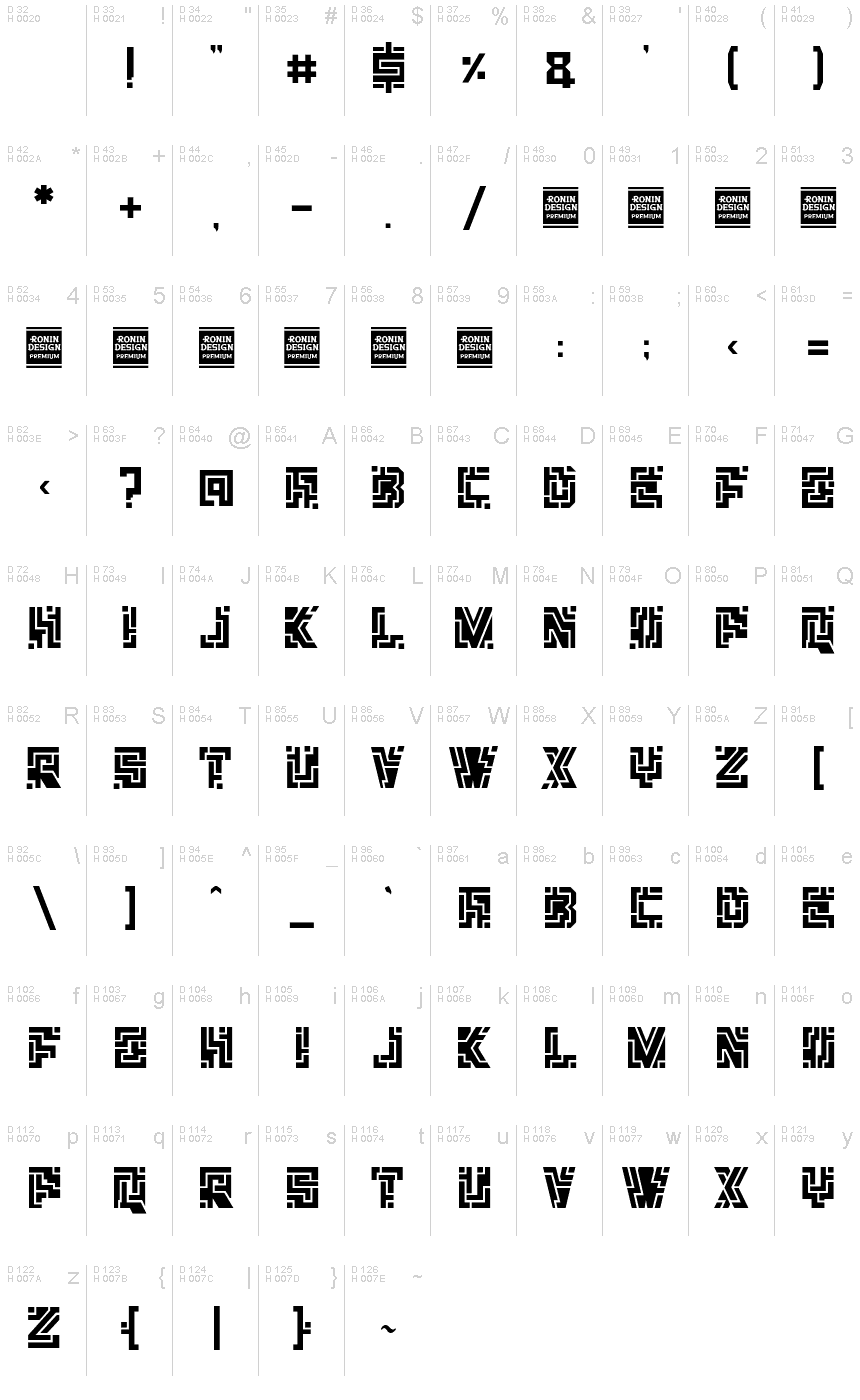
Encrypto
Encrypto is a bold and futuristic display font designed by RoninDesign. Perfect for tech and sci-fi projects, this font is sure to make your designs stand out. Whether you're creating a cutting-edge website, designing a tech product, or crafting a cyberpunk poster, Encrypto is the ideal choice for any project that needs a strong and modern feel.